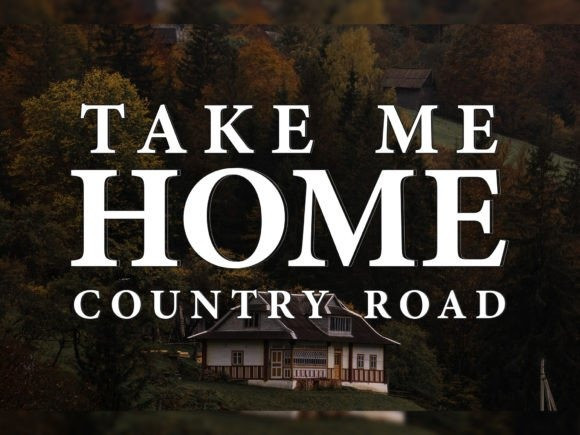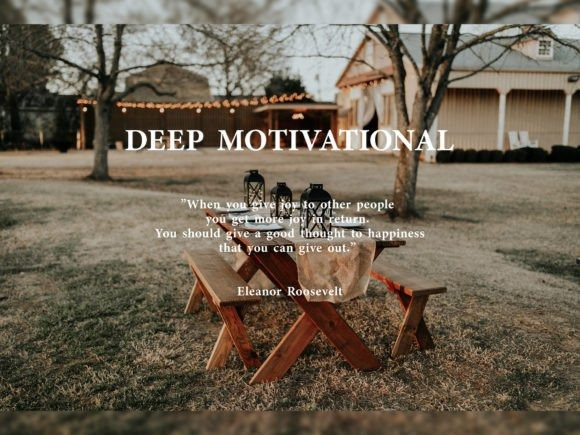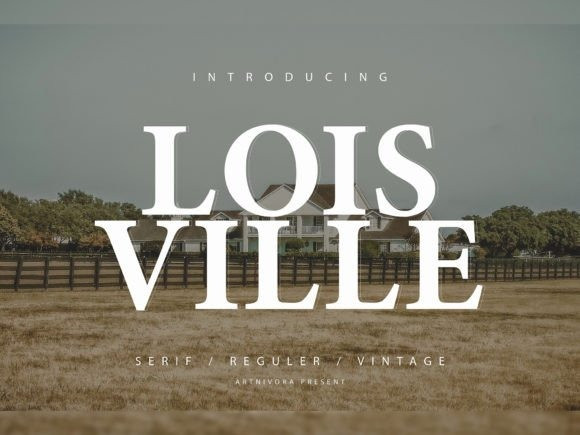
Lois Ville Font
Lois Ville Font exudes timeless charm with its vintage-inspired display serif design. This typeface brings a touch of classic elegance to your projects, whether you’re crafting invitations, labels, or headlines. With its refined yet approachable appearance, LoisVille adds a nostalgic flair that captures the essence of bygone eras.